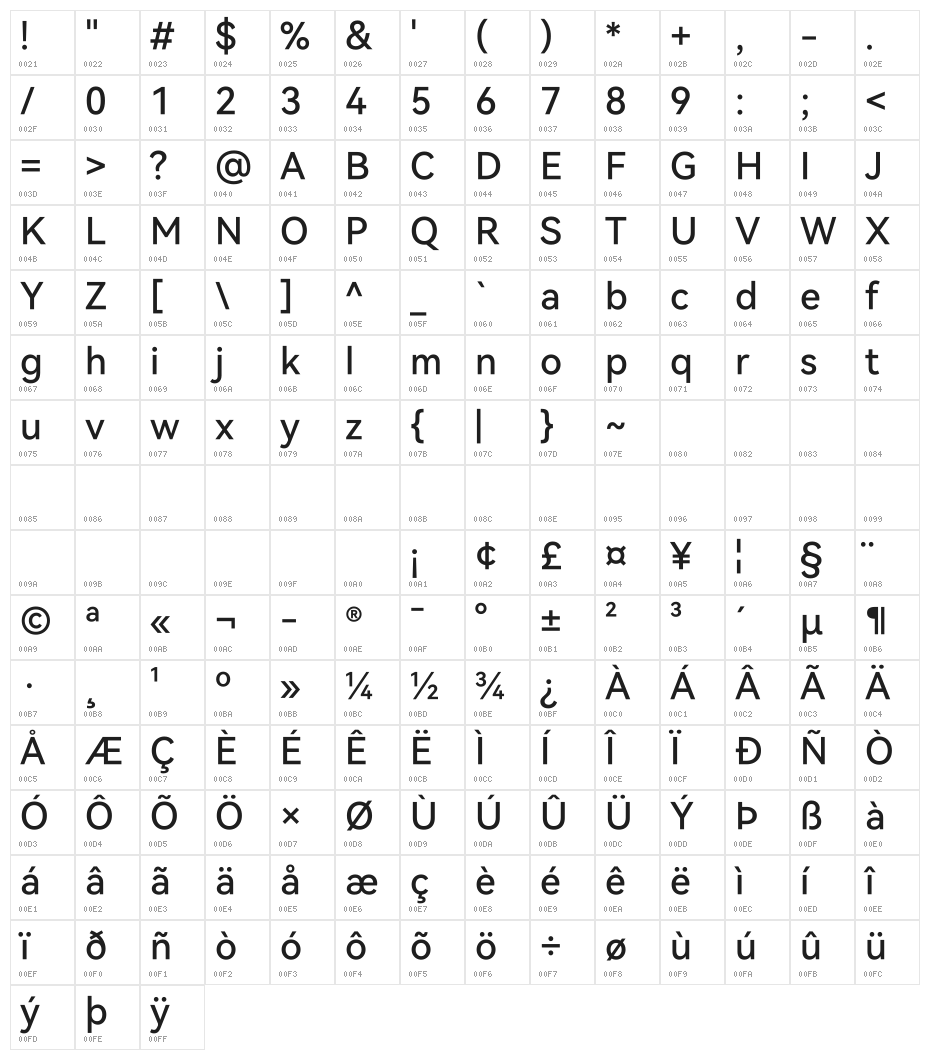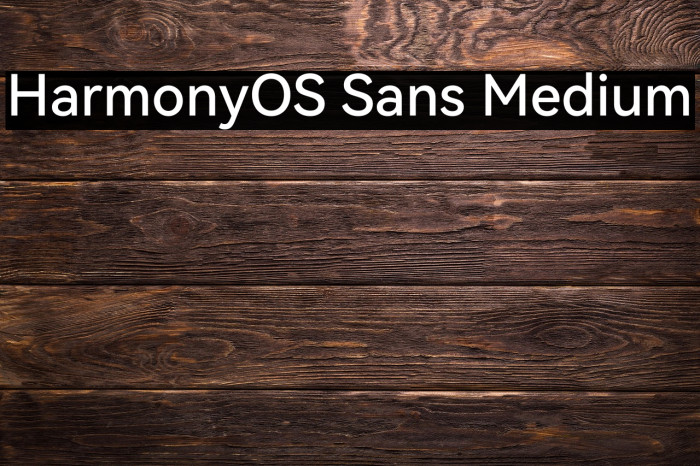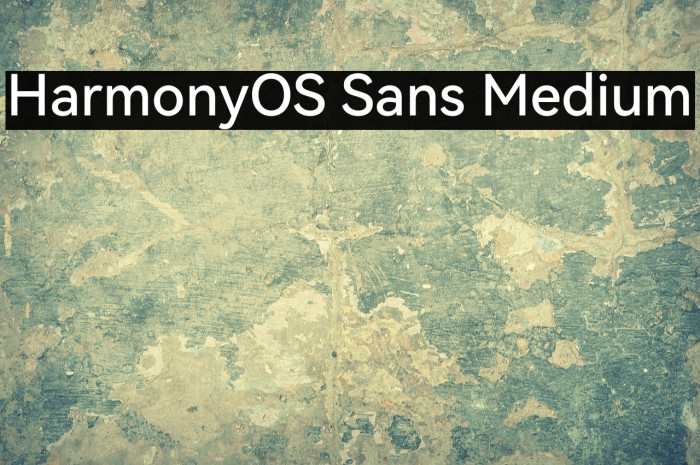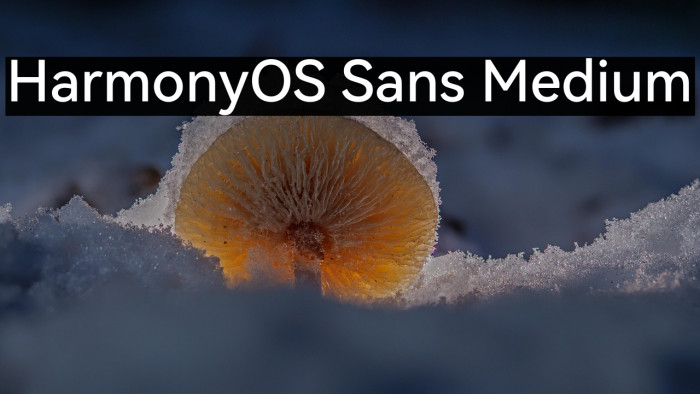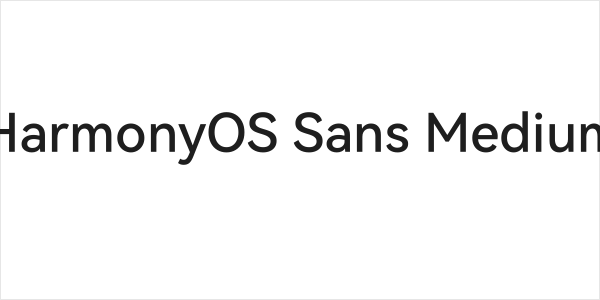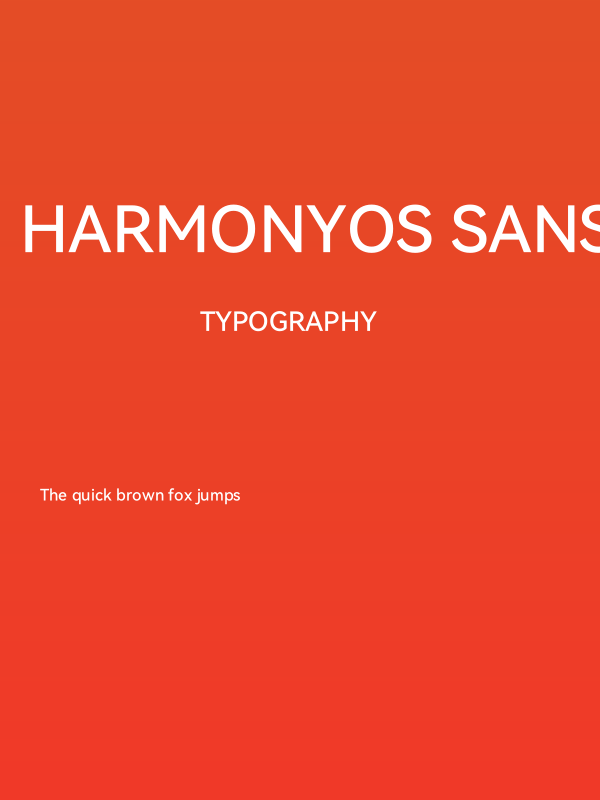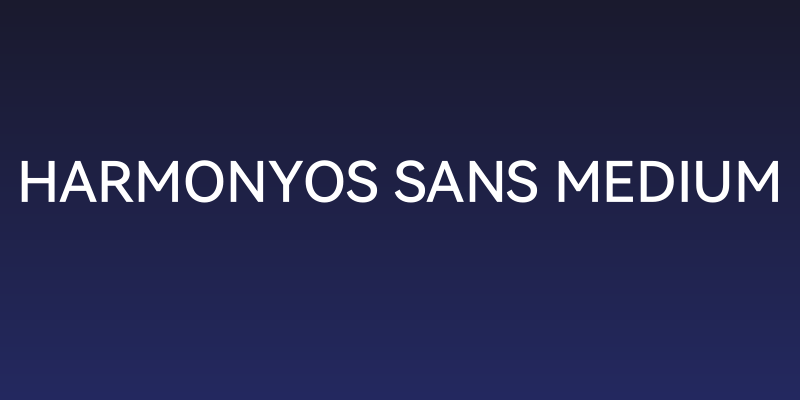
HarmonyOS Sans Medium Font
HarmonyOS Sans Medium Description
This font exhibits a clean and modern sans-serif style, characterized by its geometric shapes and uniform stroke widths. The uppercase letters are bold and assertive, while the lowercase letters maintain a consistent and harmonious appearance. The numerals are clear and easily distinguishable, making them suitable for various applications. The special characters are well-defined, ensuring readability and versatility. Overall, the font's design is minimalistic yet impactful, making it ideal for contemporary design projects.